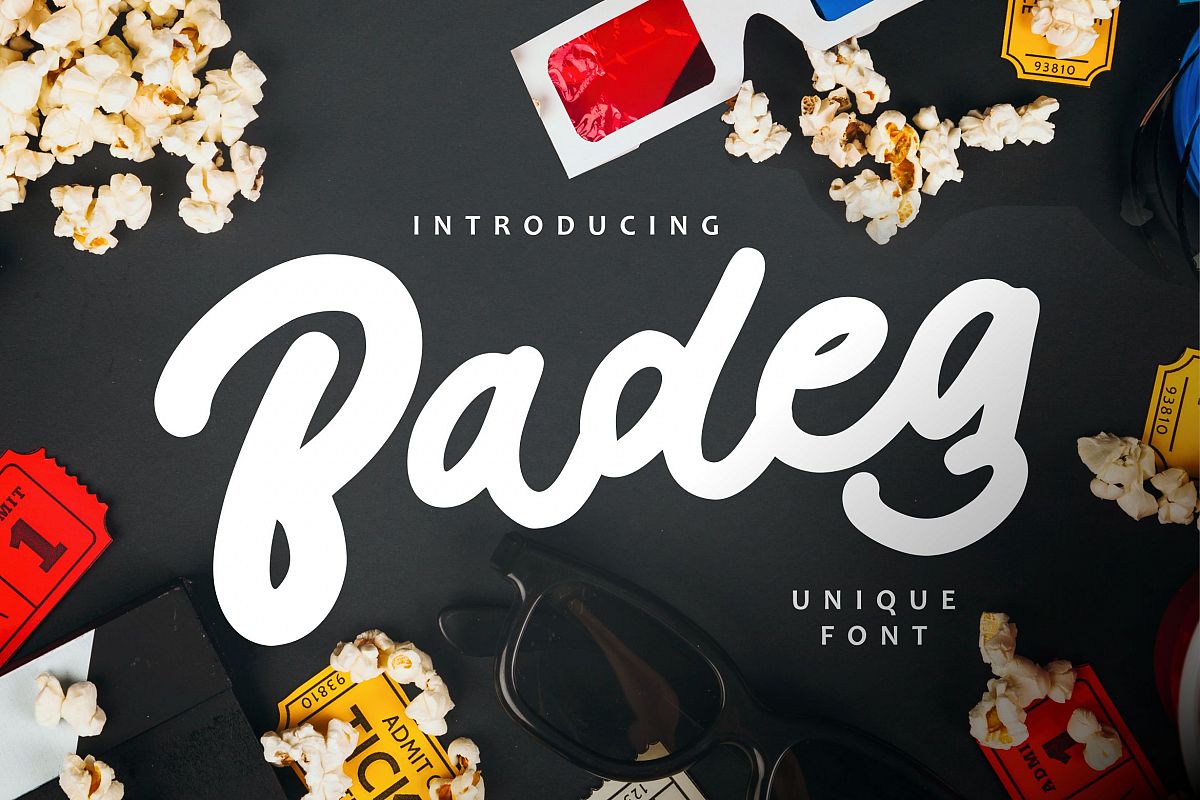
Badeg - Unique Font
Badeg
Badeg - Unique Font
So beautiful on invitation like greeting cards, branding materials, business cards, quotes, posters, and more!